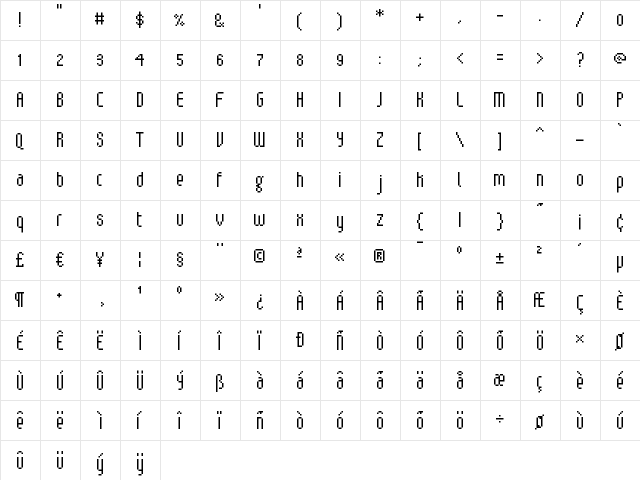
V5 Loxica Lixera
Design Context for V5 Loxica Typeface
V5 Loxica is a composed and adaptable typeface that performs quietly and consistently across a wide range of design contexts.